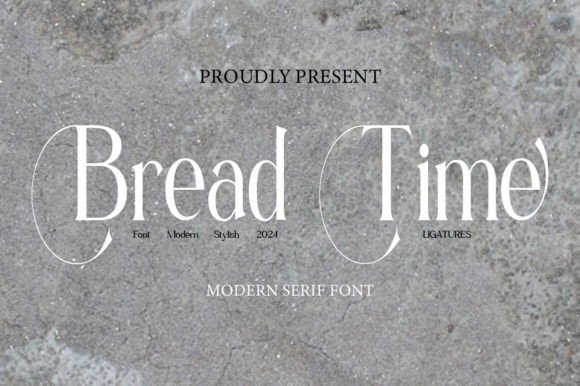
Bread Time Font: Elevate Your Typography with Elegance and Creativity
In the world of typography, fonts play a crucial role in conveying messages, evoking emotions, and creating a lasting impression. Among the numerous fonts available, Bread Time stands out as a modern and elegant serif font that offers a unique blend of sophistication and creativity. In this article, we will delve into the features, benefits, and uses of Bread Time font, and explore how it can elevate your design projects to new heights.
Introducing Bread Time Font
Bread Time is a modern serif font designed to provide a touch of elegance and sophistication to your text. Its sleek lines, refined curves, and stylish alternate glyphs make it an ideal choice for a wide range of design projects, from branding and advertising to packaging and publishing. With its versatile design, Bread Time font can be used to create a variety of moods and styles, from classic and traditional to whimsical and playful.
Key Features of Bread Time Font
- Stylish Alternate Glyphs: Bread Time font comes with a range of stylish alternate glyphs that allow you to customize your text and add a touch of uniqueness to your design.
- Ligatures: The font features ligatures, which enable you to create a more fluid and natural text flow, perfect for body text, headings, and titles.
- Modern and Elegant Design: Bread Time font boasts a modern and elegant design, making it suitable for a wide range of design projects, from luxury brands to creative publications.
- Highly Versatile: The font is highly versatile, allowing you to use it for various design projects, including branding, advertising, packaging, and publishing.
The Power of Typography: How Bread Time Font Can Elevate Your Design
Typography plays a vital role in design, as it can make or break the visual appeal of your project. With Bread Time font, you can elevate your design to new heights by:
- Creating a Lasting Impression: Bread Time font’s elegant design and stylish alternate glyphs can help you create a lasting impression on your audience, setting your brand or project apart from the competition.
- Evolving Emotions: The font’s versatile design allows you to evoke different emotions and moods, from sophistication and elegance to playfulness and whimsy.
- Enhancing Readability: Bread Time font’s clear and refined design ensures excellent readability, making it perfect for body text, headings, and titles.
- Adding Creativity: The font’s ligatures and alternate glyphs provide a playground for creativity, allowing you to experiment with different styles and effects.
Use Cases for Bread Time Font
Bread Time font is a versatile design tool that can be used for a wide range of projects, including:
- Branding and Identity: Use Bread Time font to create a unique and memorable brand identity that reflects your values and personality.
- Advertising and Marketing: The font’s elegant design and stylish alternate glyphs make it perfect for advertising and marketing materials, such as brochures, flyers, and posters.
- Packaging Design: Bread Time font can add a touch of sophistication and elegance to your packaging design, making your product stand out on store shelves.
- Publishing and Editorial: The font’s excellent readability and versatile design make it suitable for publishing and editorial projects, such as magazines, newspapers, and books.
Tips and Tricks for Using Bread Time Font
To get the most out of Bread Time font, here are some tips and tricks to keep in mind:
- Experiment with Alternate Glyphs: Don’t be afraid to experiment with the font’s alternate glyphs and ligatures to add a unique touch to your design.
- Mix and Match: Combine Bread Time font with other design elements, such as images and graphics, to create a visually appealing design.
- Pay Attention to Kerning: Make sure to adjust the kerning and tracking to ensure optimal readability and visual flow.
- Use it for Headings and Titles: Bread Time font is perfect for headings and titles, so don’t hesitate to use it to add a touch of elegance and sophistication to your design.
In conclusion, Bread Time font is a modern and elegant serif font that offers a unique blend of sophistication and creativity. With its stylish alternate glyphs, ligatures, and versatile design, it’s perfect for a wide range of design projects, from branding and advertising to packaging and publishing. By incorporating Bread Time font into your design, you can elevate your typography, evoke emotions, and create a lasting impression on your audience.